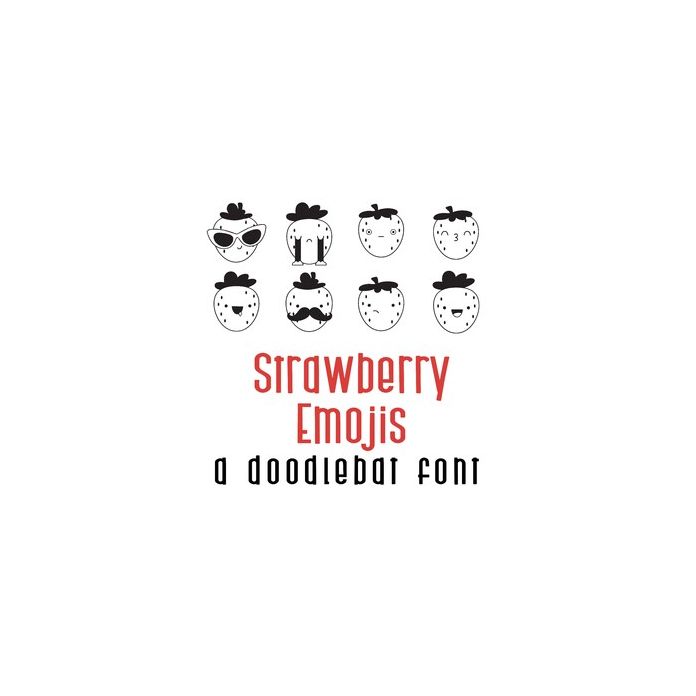
This adorable doodlebat font features 26 strawberry emojis. Perfect for cards,crafts, gifts, decor, planner stickers, classrooms, scrapbooking and more!